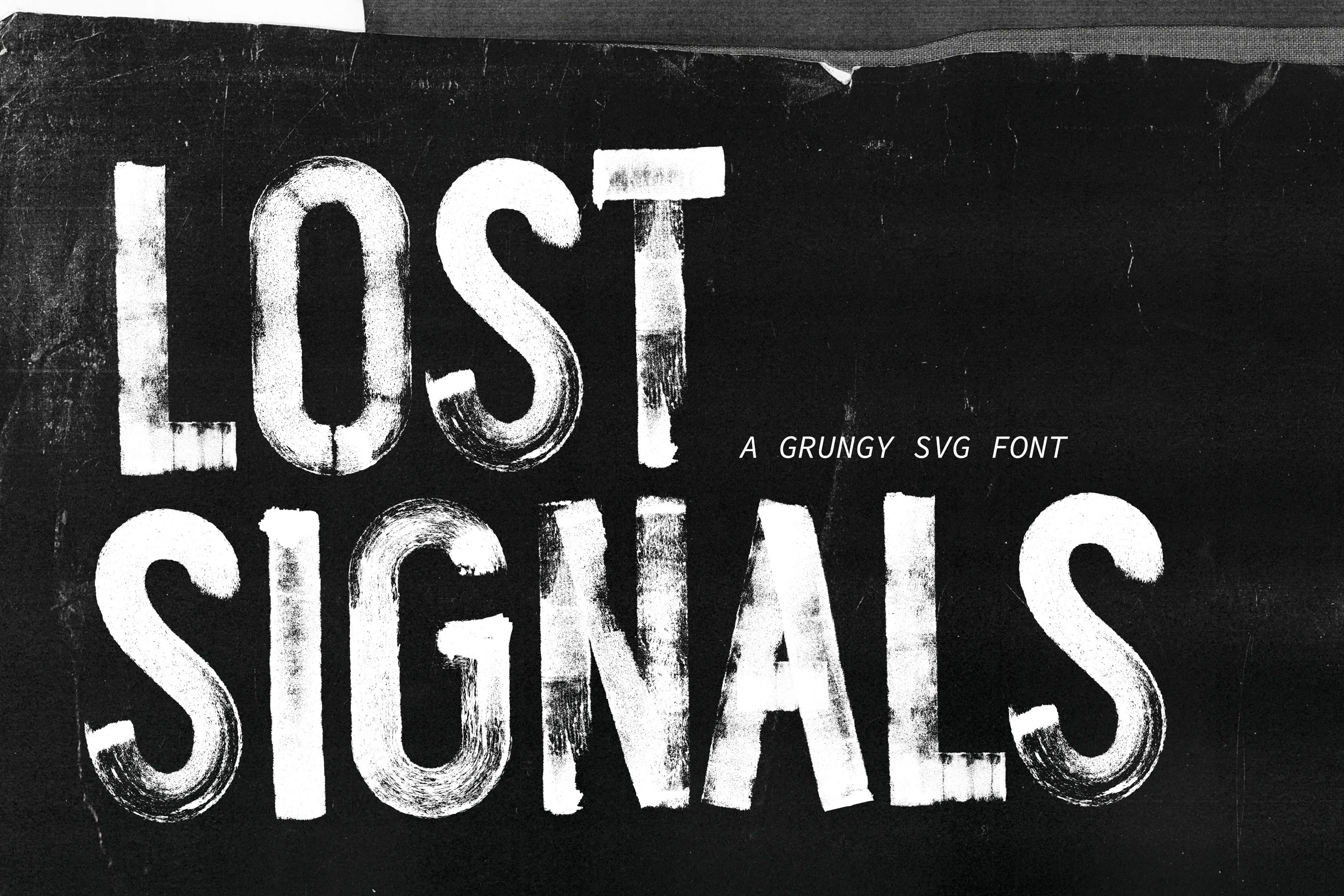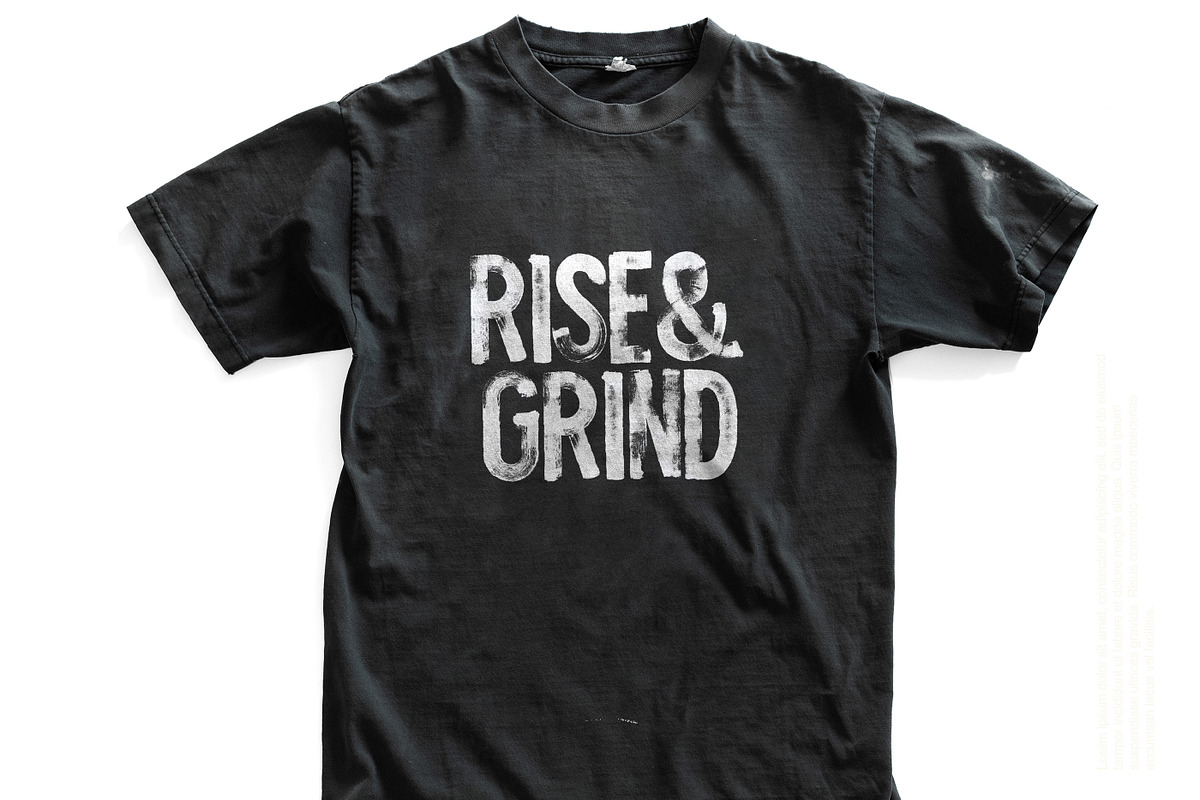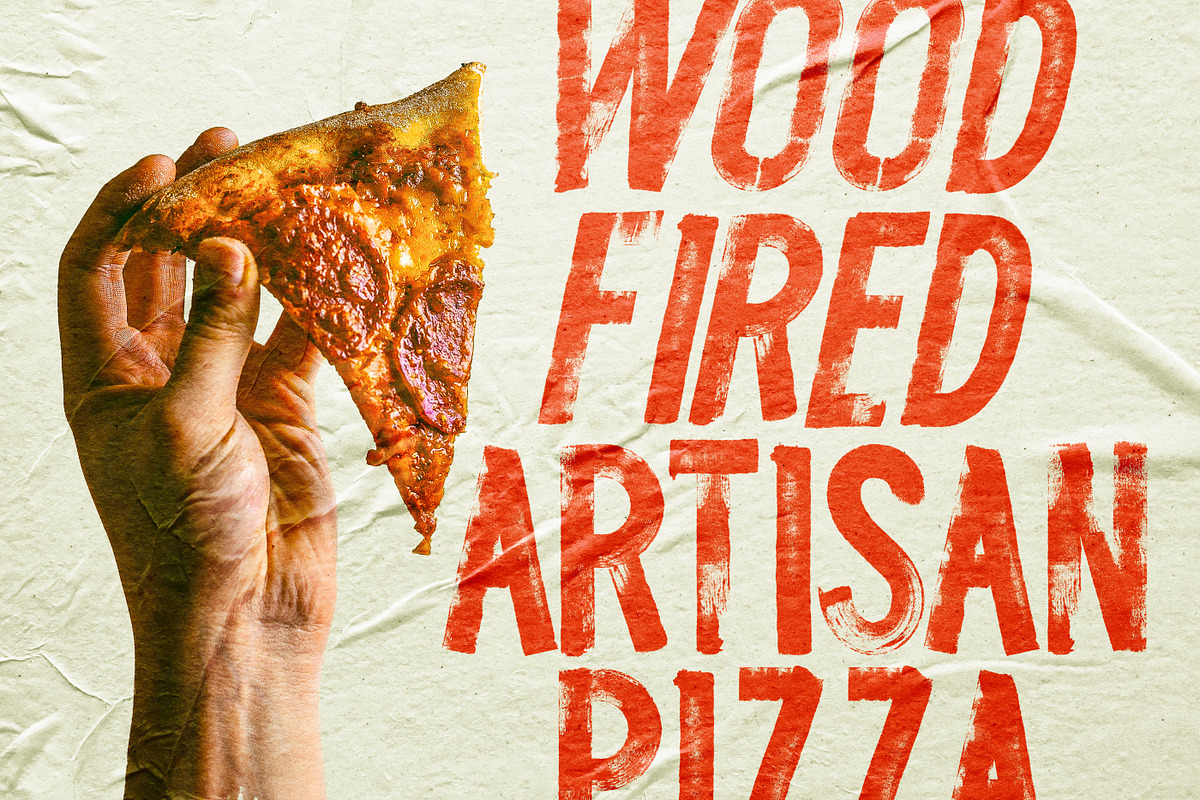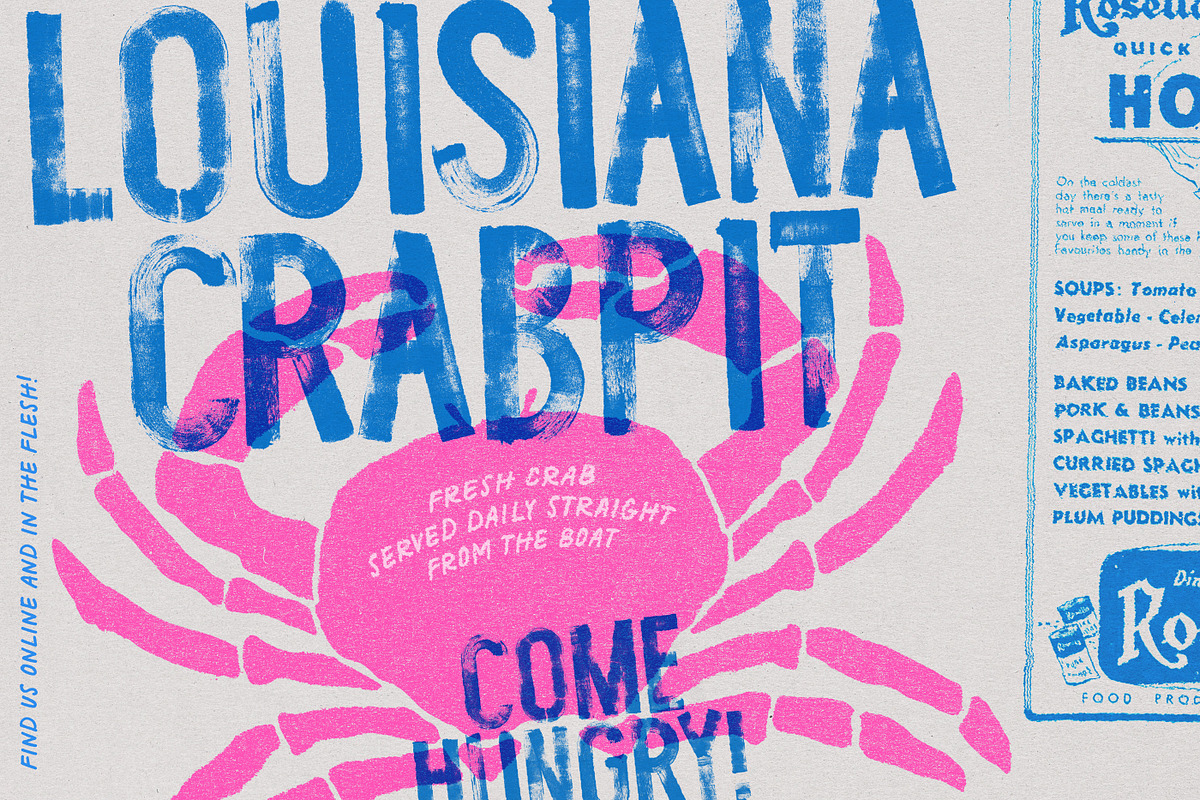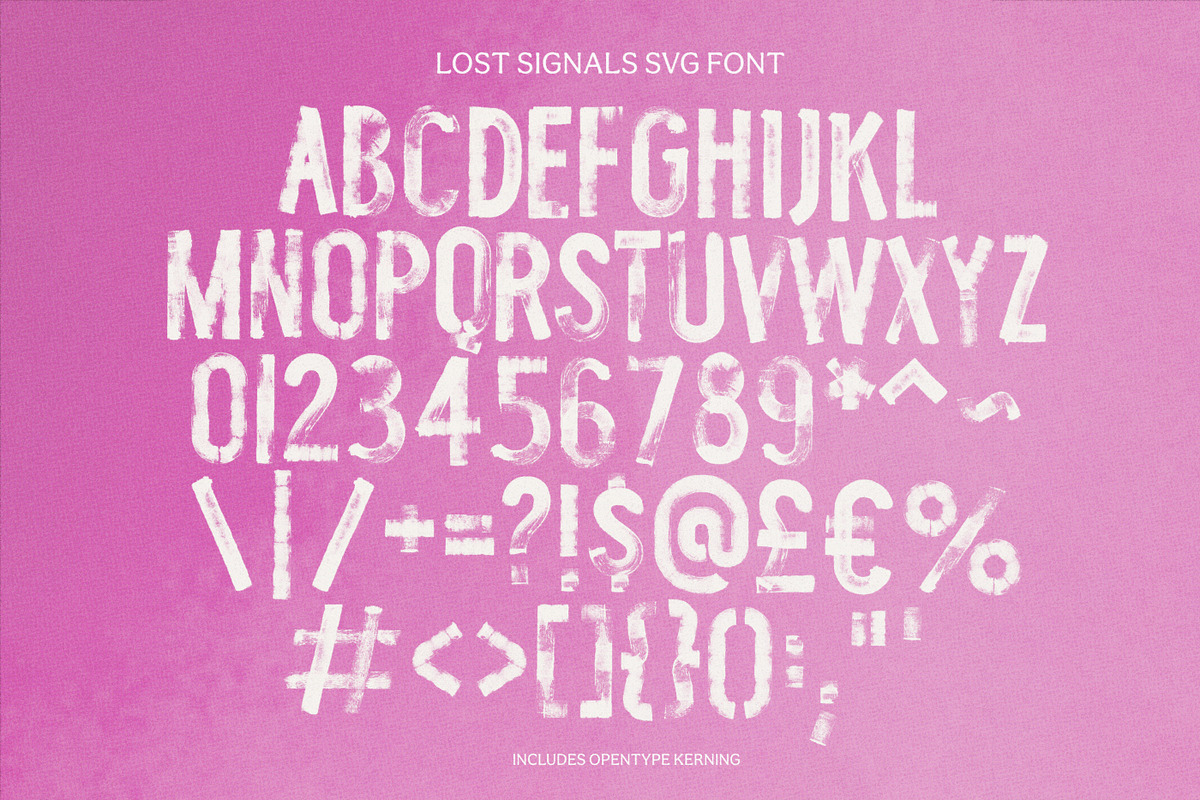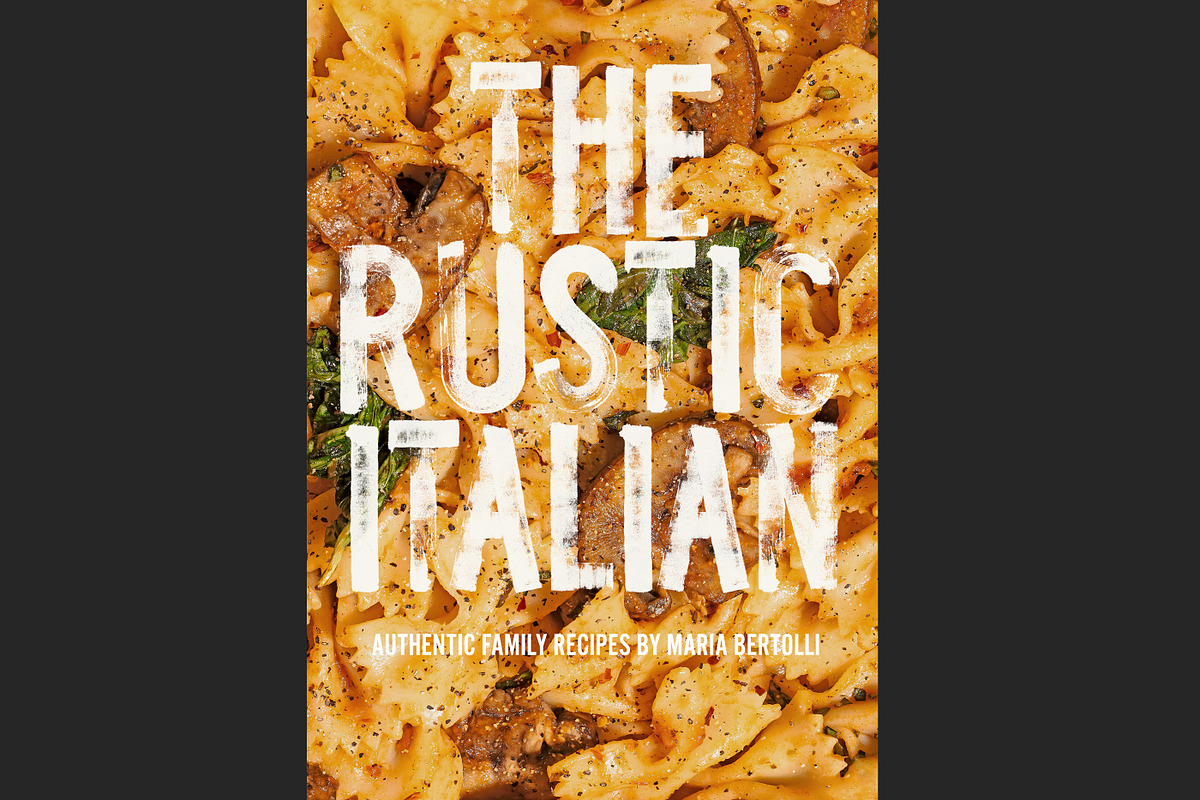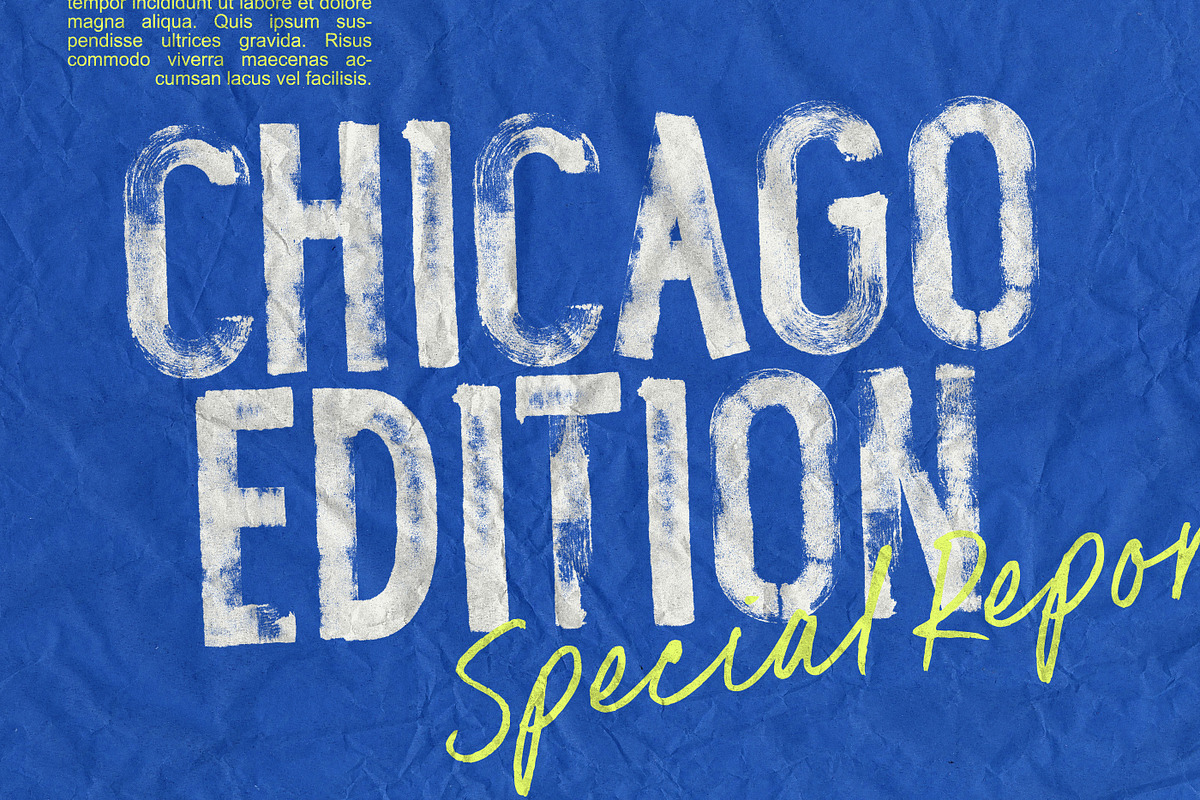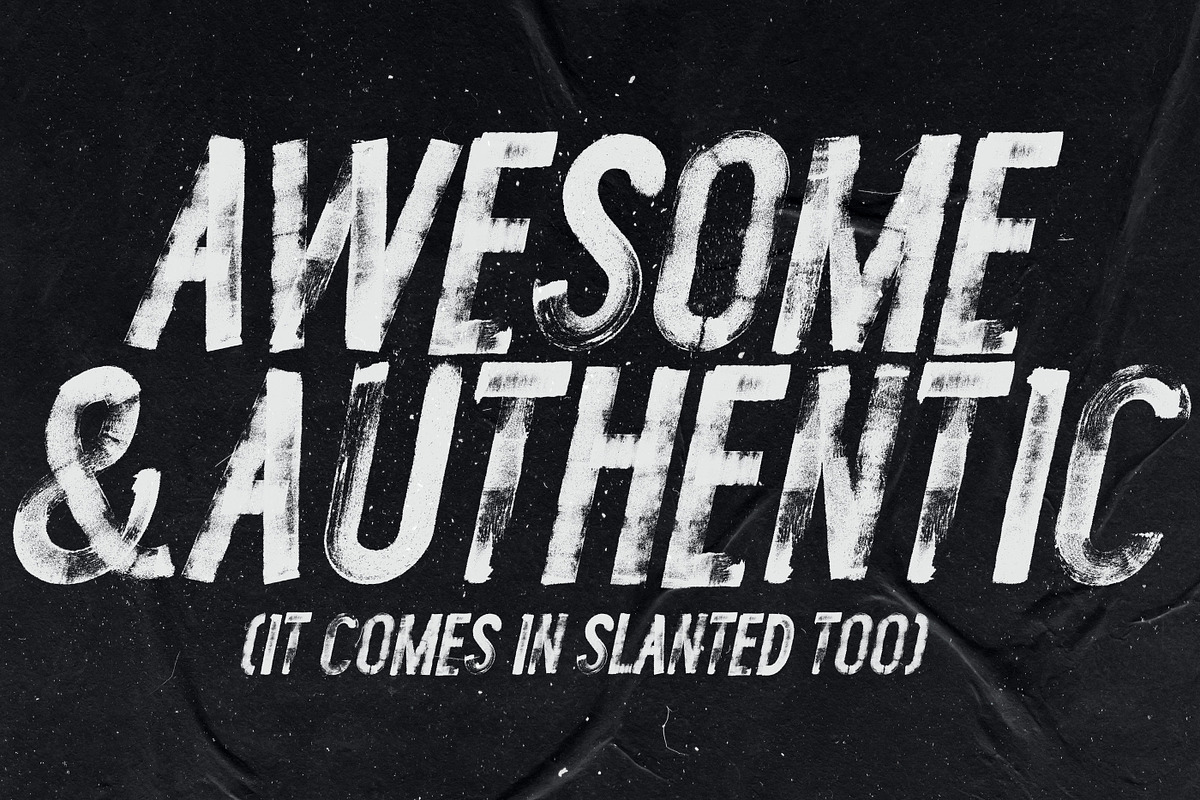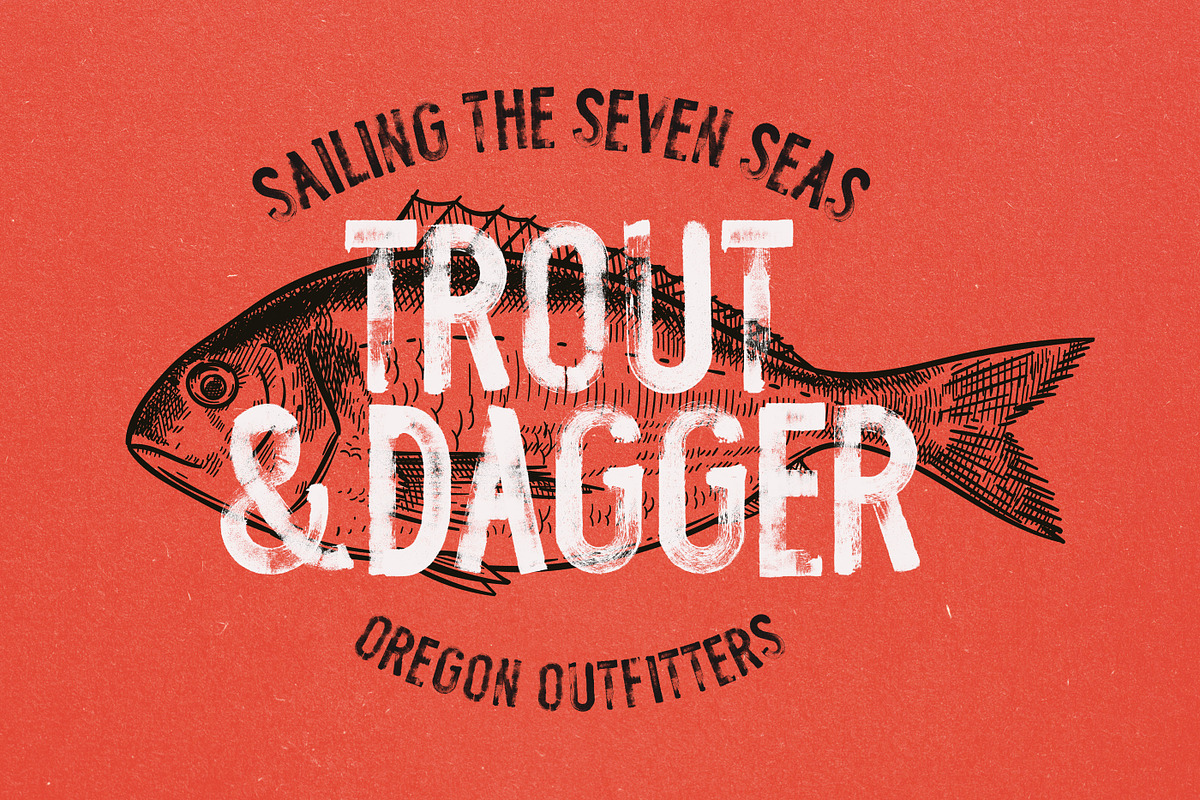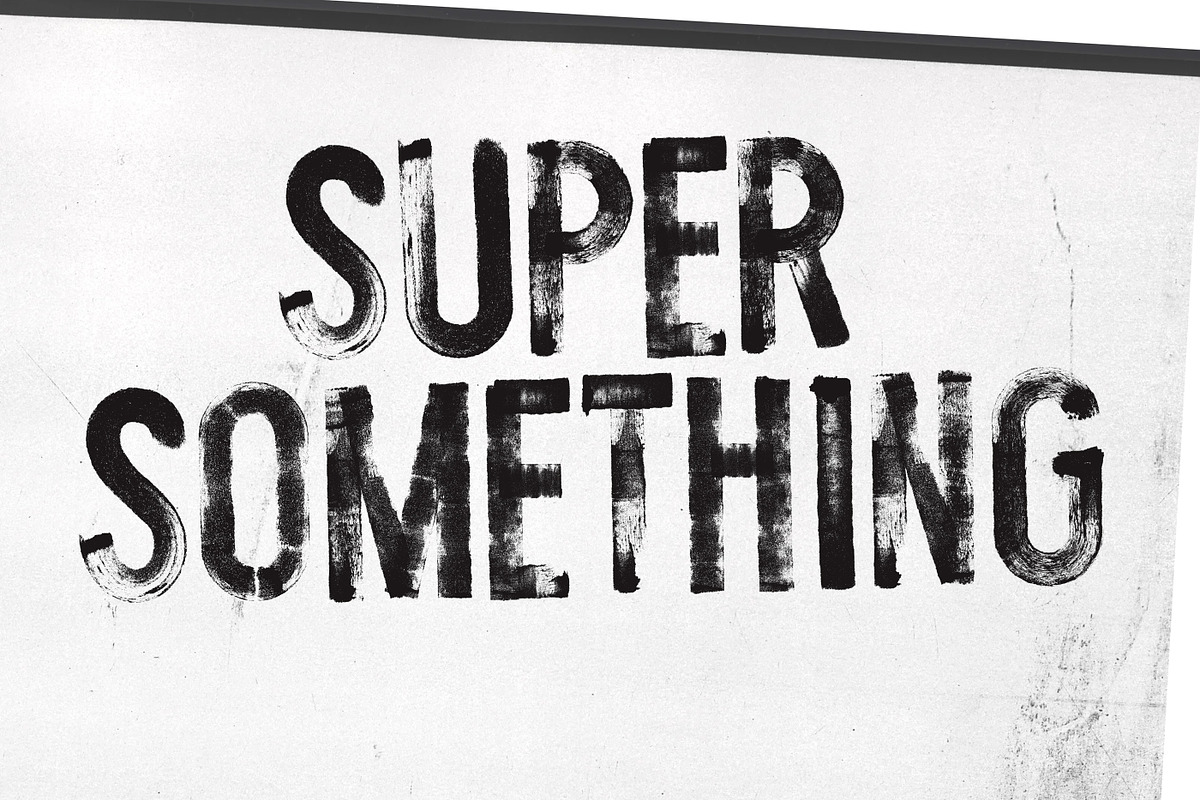
Lost Signals Grungy SVG Font
Say hello to LOST SIGNALS! A grungy, painted all-caps sans serif SVG Bitmap font - with built in texture and transparency for that ultra real painted look. Available in Regular and Slanted versions for you:)
REGULAR FONTS : For those who would prefer it - a regular vectorised version of the SVG fonts is included, although remember with vector based fonts - there is much less texture detail than in the original SVG font.